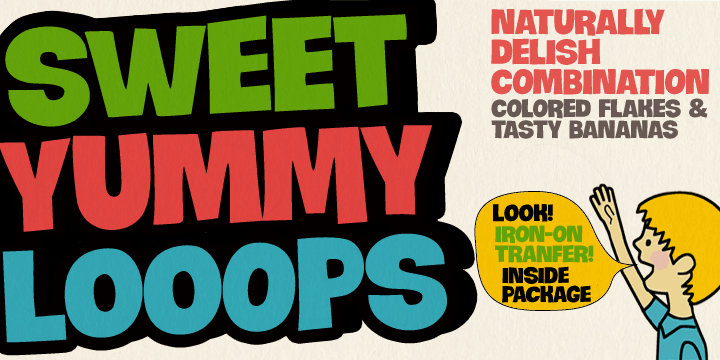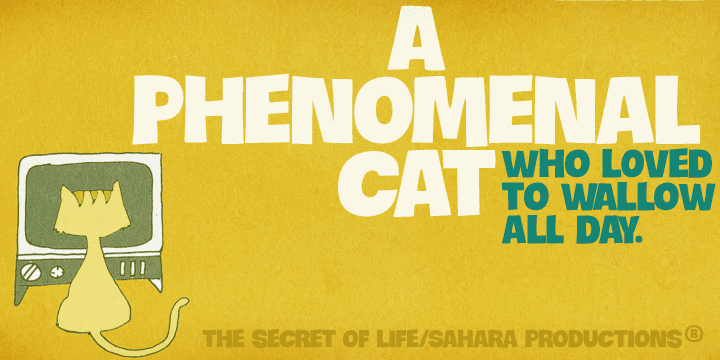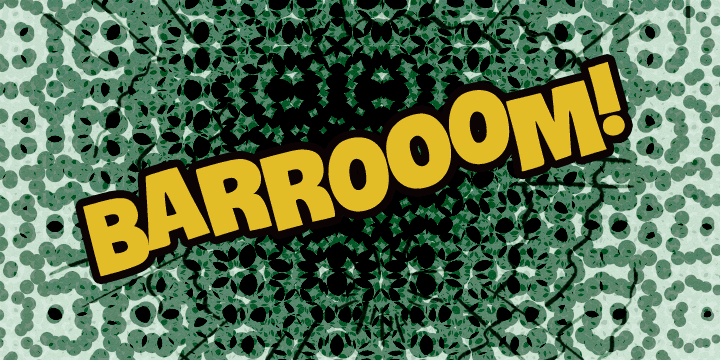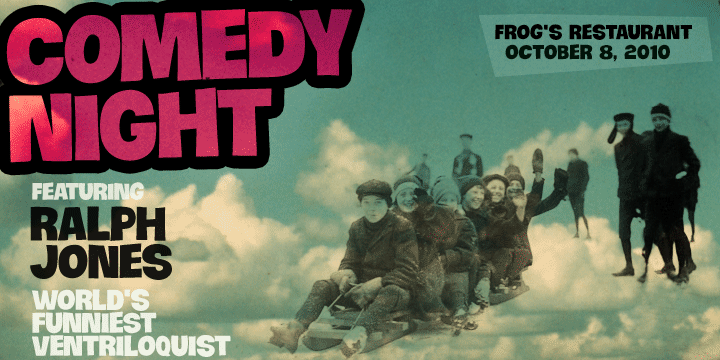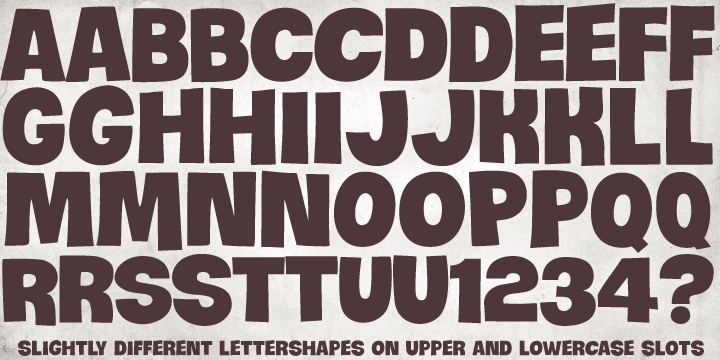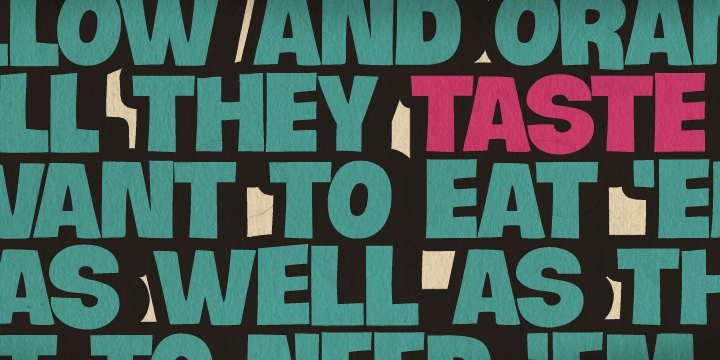
Crocante is a comic font published by PintassilgoPrints.
Crocante is an energetic and good-humored display font.
Although being an all caps alphabet, it counts two versions for each letter, easily accessed through keyboard upper and lower keys. These slightly different letterforms will bring spontaneity and vitality to your designs. Crunching noises guaranteed!